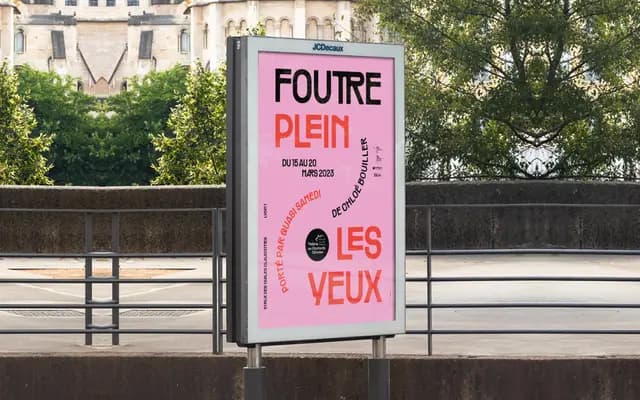
PP Rader
Pangram Foundry · Valerio Monopoli · 2022
An expressive industrial grotesque by Valerio Monopoli, drawn from vintage road signage in 16 styles plus a variable cut.
Rader is a 16-style industrial grotesque by Valerio Monopoli, with weights from Hairline to Bold and matching italics. The drawing pulls from vintage German road signage and a debut-de-siecle aesthetic, sitting between editorial display and an expressive workhorse. Round inner counters give it a printed feel without losing its modern read.
Pangram tags it Brutalist, Expressive, Italics, Sans Serif, Variable. Sixteen styles across eight weights with italics and a variable cut. Drawn from vintage road signage and turn-of-the-century industrial grotesques.